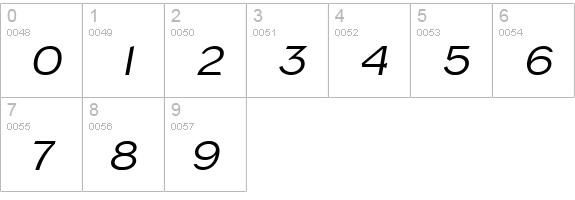
Napa SF Italic is a distinctive, italic variant in the Napa typeface family \xE2\x80\x94 well suited to design and typography projects.
Napa SF Italic is a stylish and elegant font that exudes sophistication and modernity. Its slanted design adds a touch of flair and uniqueness to any project, making it perfect for various creative applications such as branding, logos, invitations, and more. The sleek and sleek curves of Napa SF Italic make it a versatile choice for both digital and print designs. What sets Napa SF Italic apart is that it is available for free download at FontsMarket.com. This means that you can easily access this high-quality font without any cost, making it a valuable addition to your font library. With its clean lines and contemporary aesthetic, Napa SF Italic is sure to elevate your designs and leave a lasting impression on your audience.